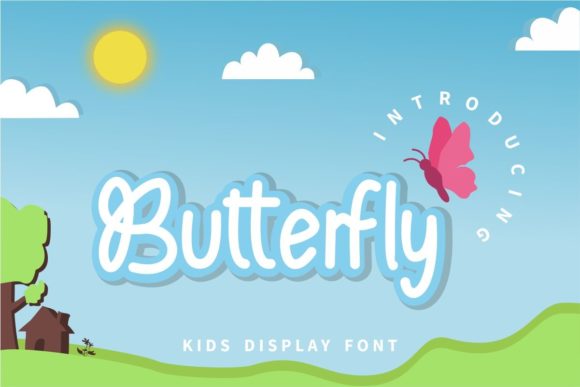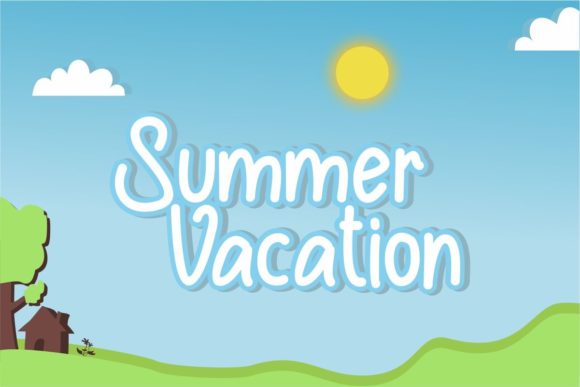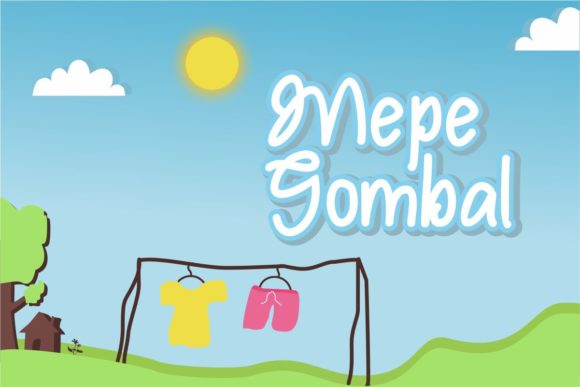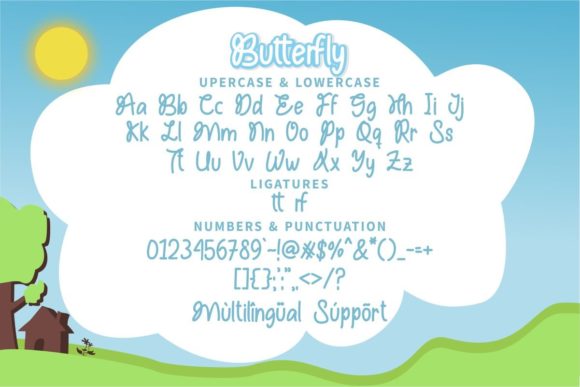
Butterfly is a delightful and whimsical script font that adds a touch of cuteness, nature, and quirkiness to your designs. With its charming and lively style, this font is the perfect choice for bringing a sense of playfulness and joy to any project.
The unique and playful letterforms of Butterfly make it stand out and capture attention. Its natural and organic feel adds a touch of warmth and friendliness to your designs, making it a great choice for various applications.
Whether you’re designing greeting cards, children’s books, party invitations, or any other creative project, Butterfly will infuse your designs with a sense of liveliness and energy. Its cute and whimsical style is sure to bring a smile to the faces of your audience.
The versatility of Butterfly allows it to shine in both digital and print media. Its legible and well-crafted letterforms ensure readability while maintaining its quirky and fun personality. This font truly brightens up your designs and adds a touch of charm.
Let Butterfly flutter into your designs and watch it transform your creations into playful and captivating pieces of art. Embrace its cute, natural, and quirky style, and see how it brings a sense of life and vibrancy to your projects.